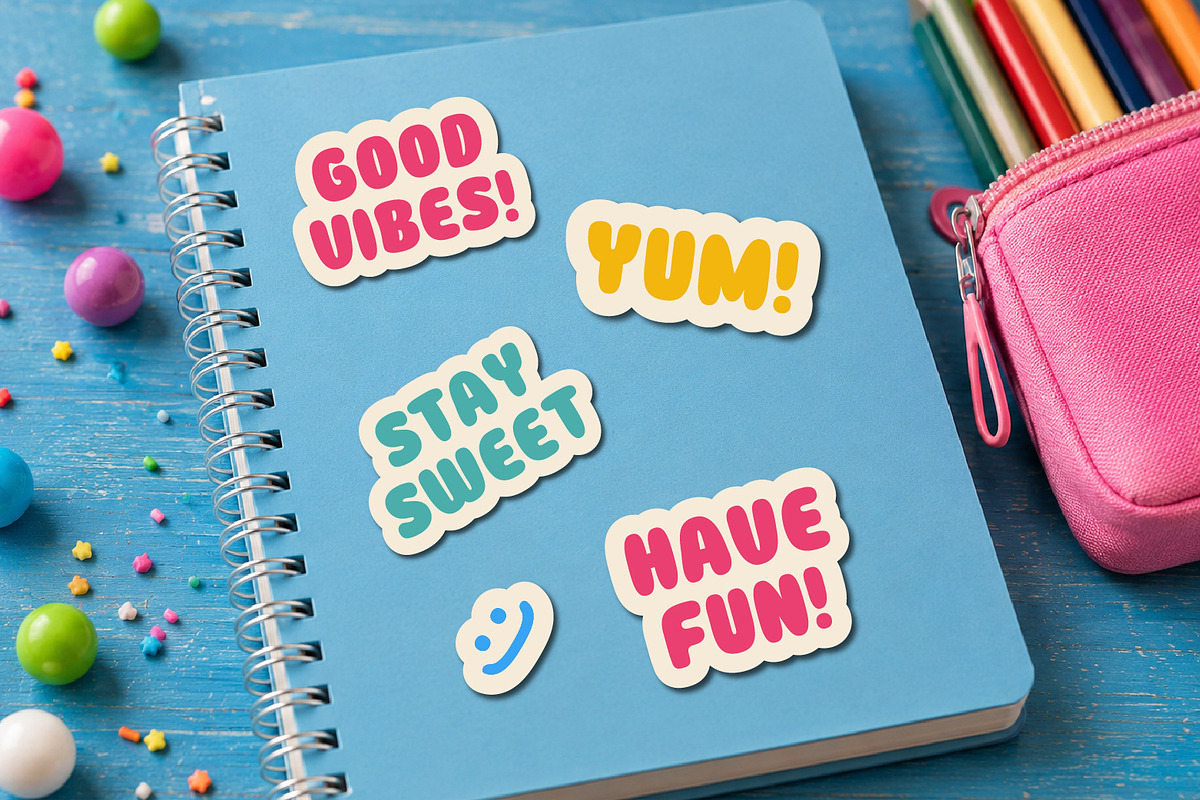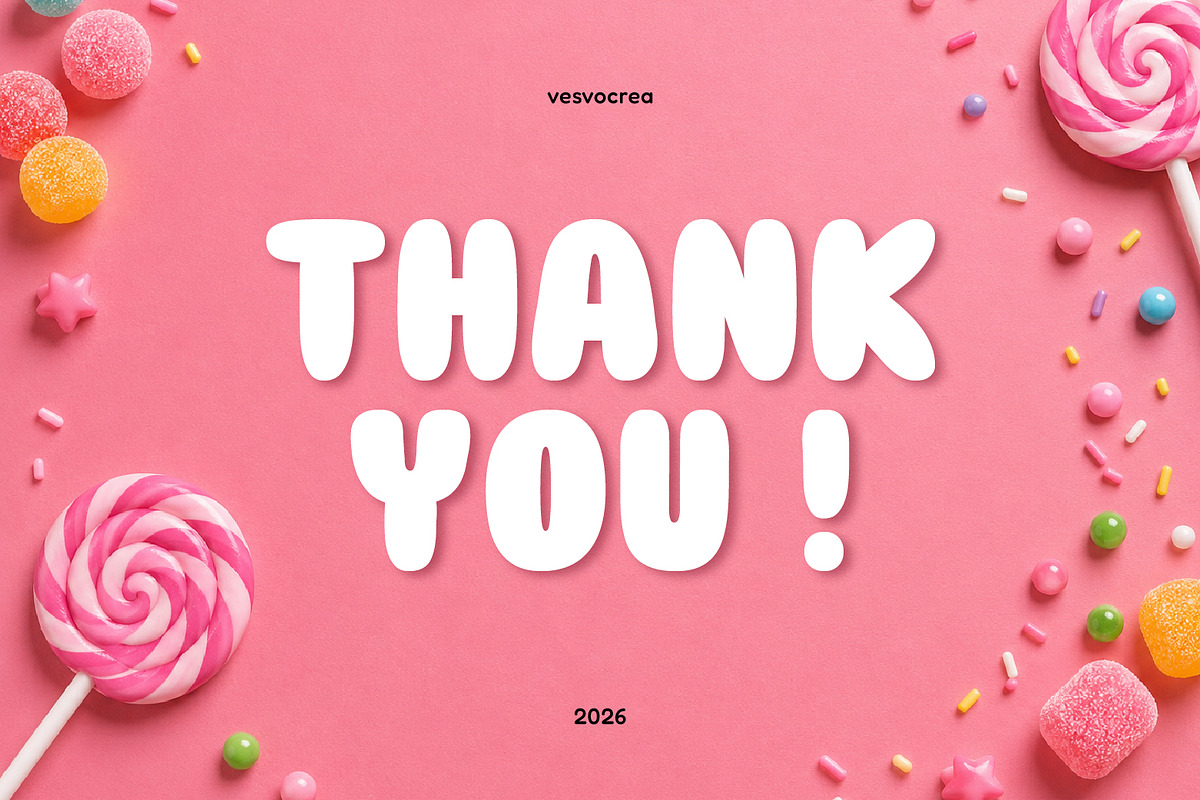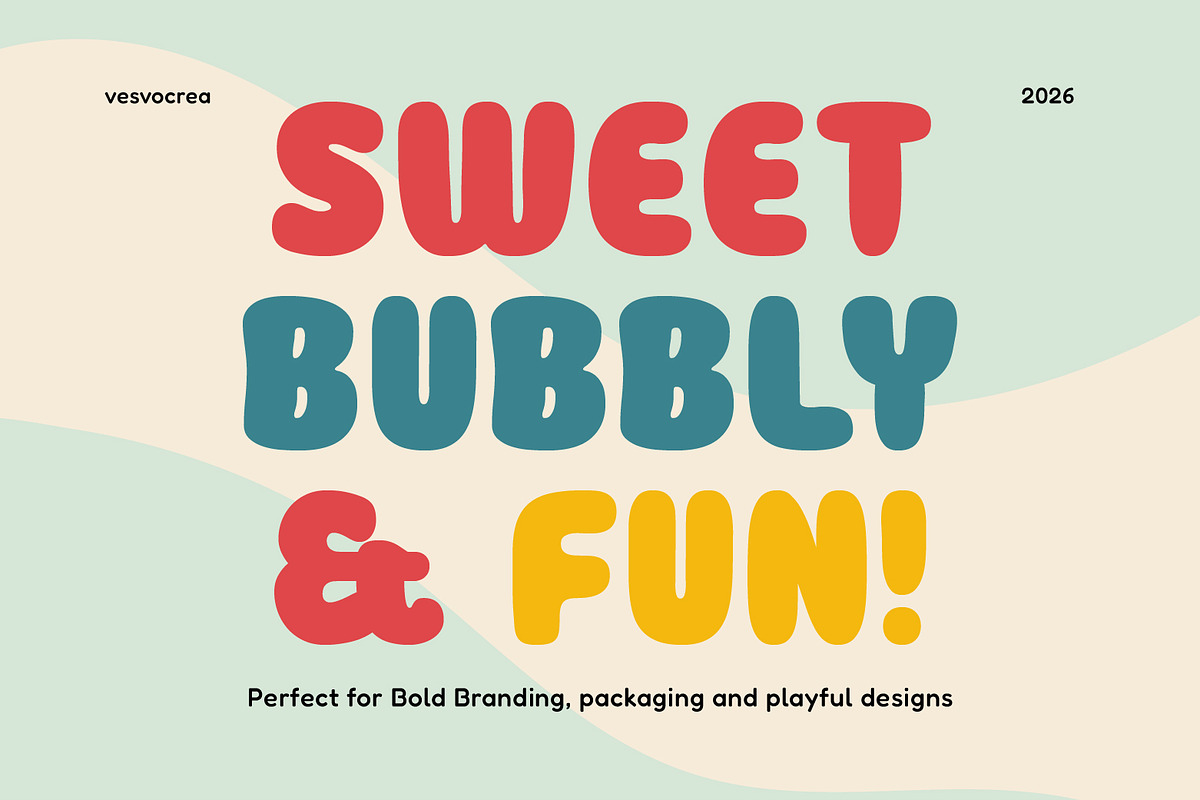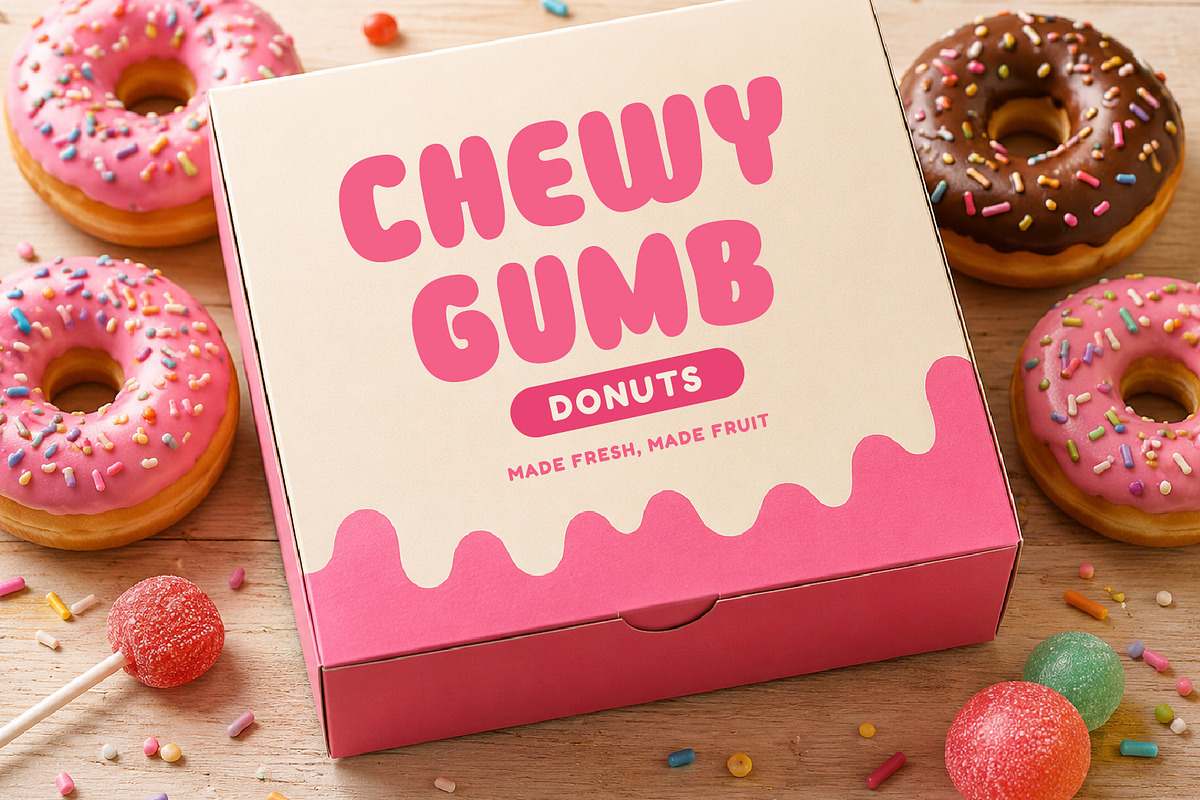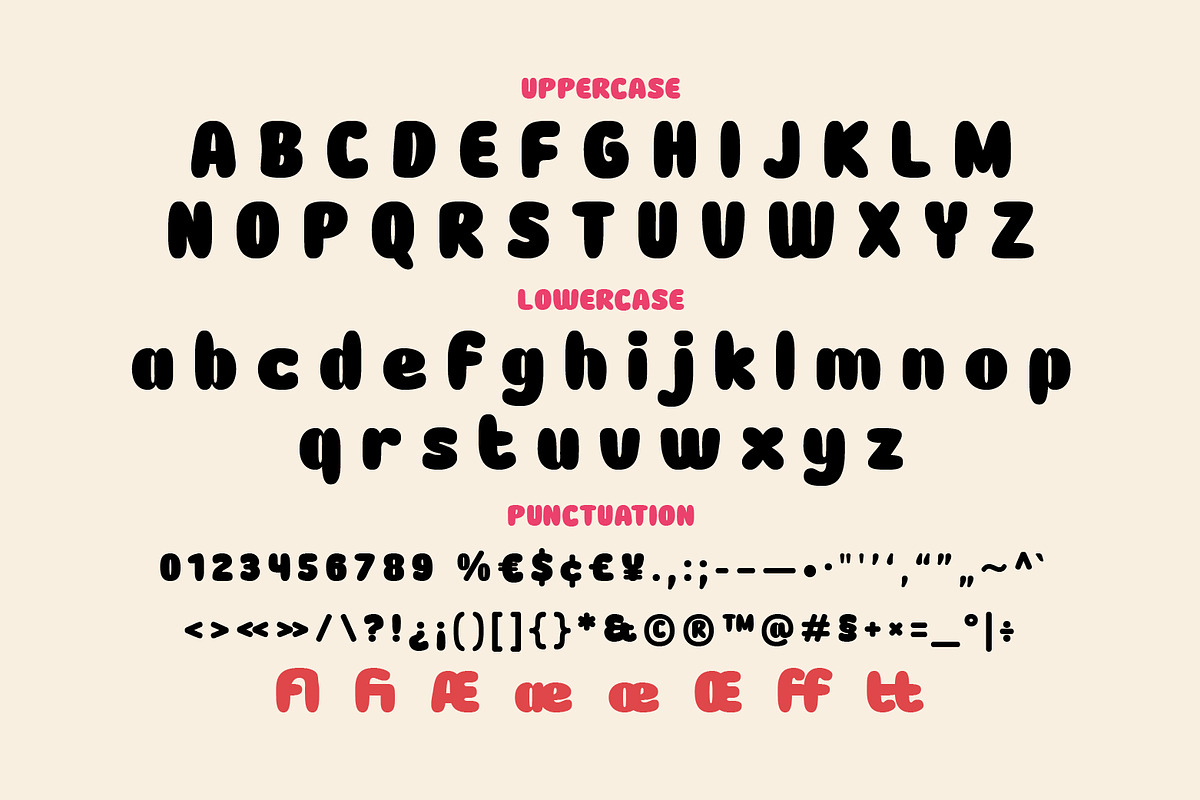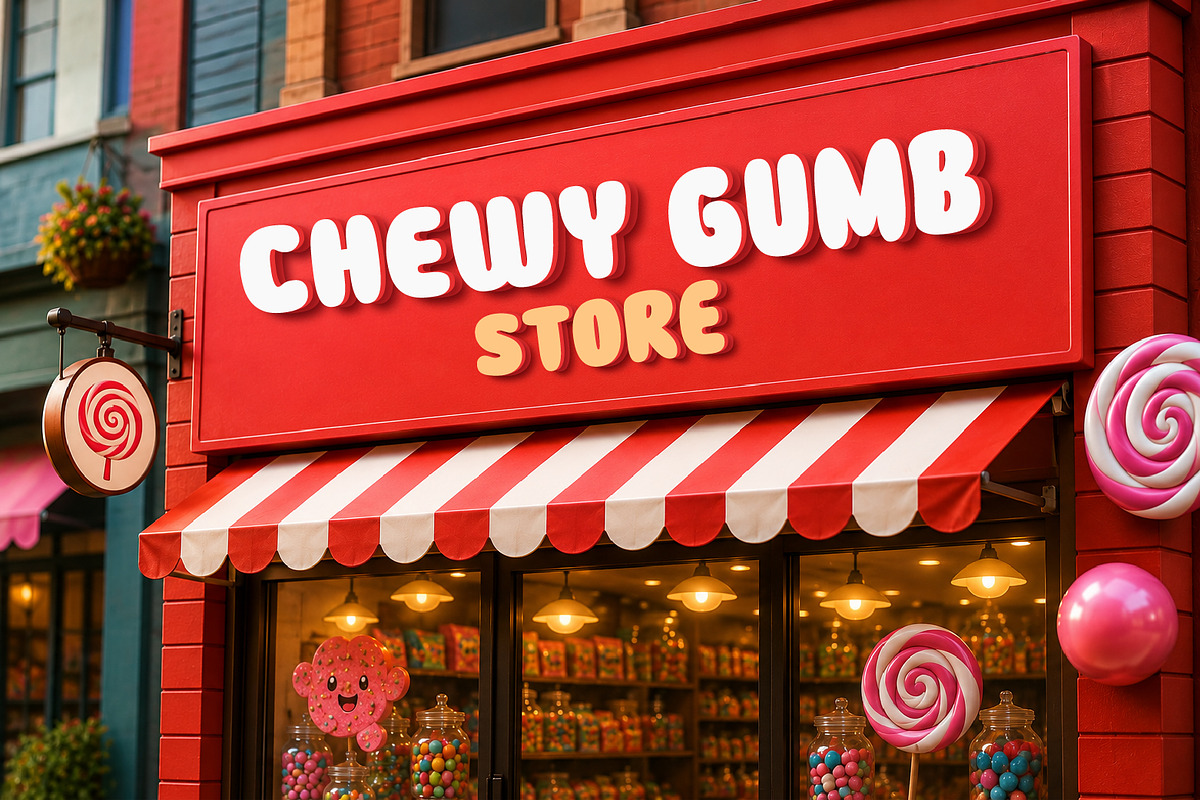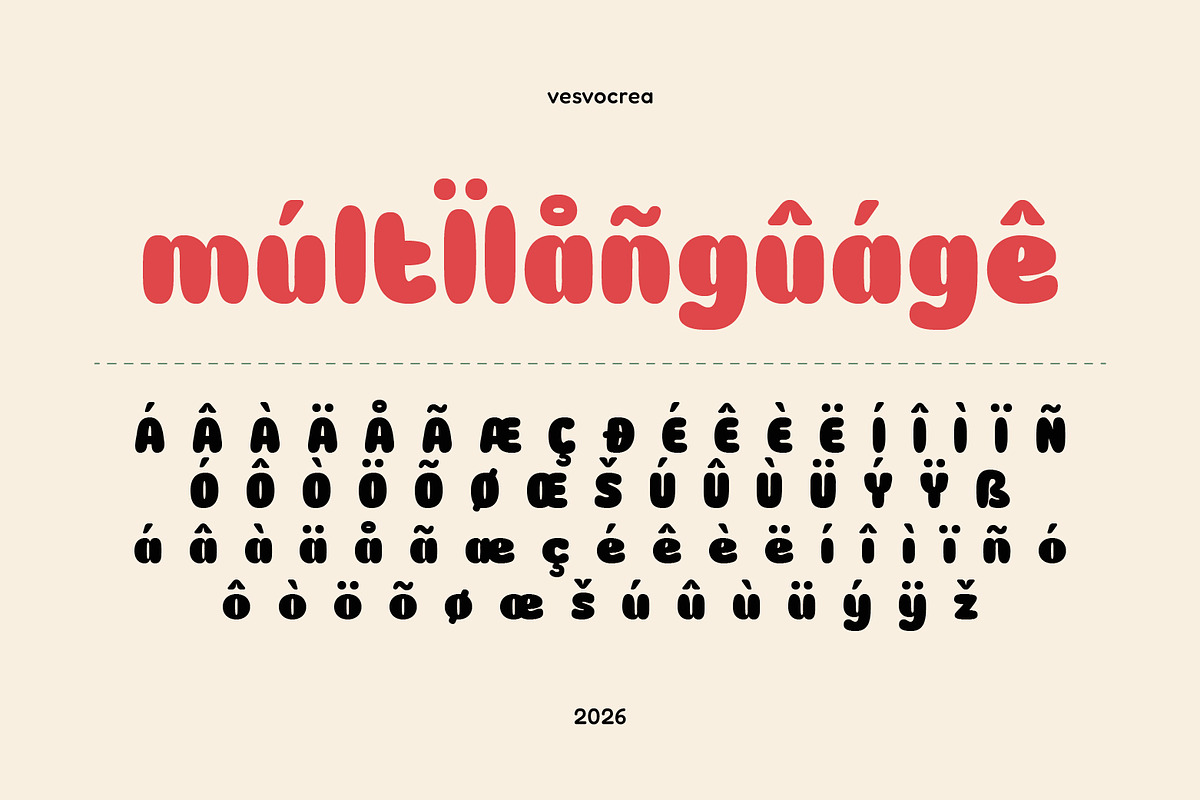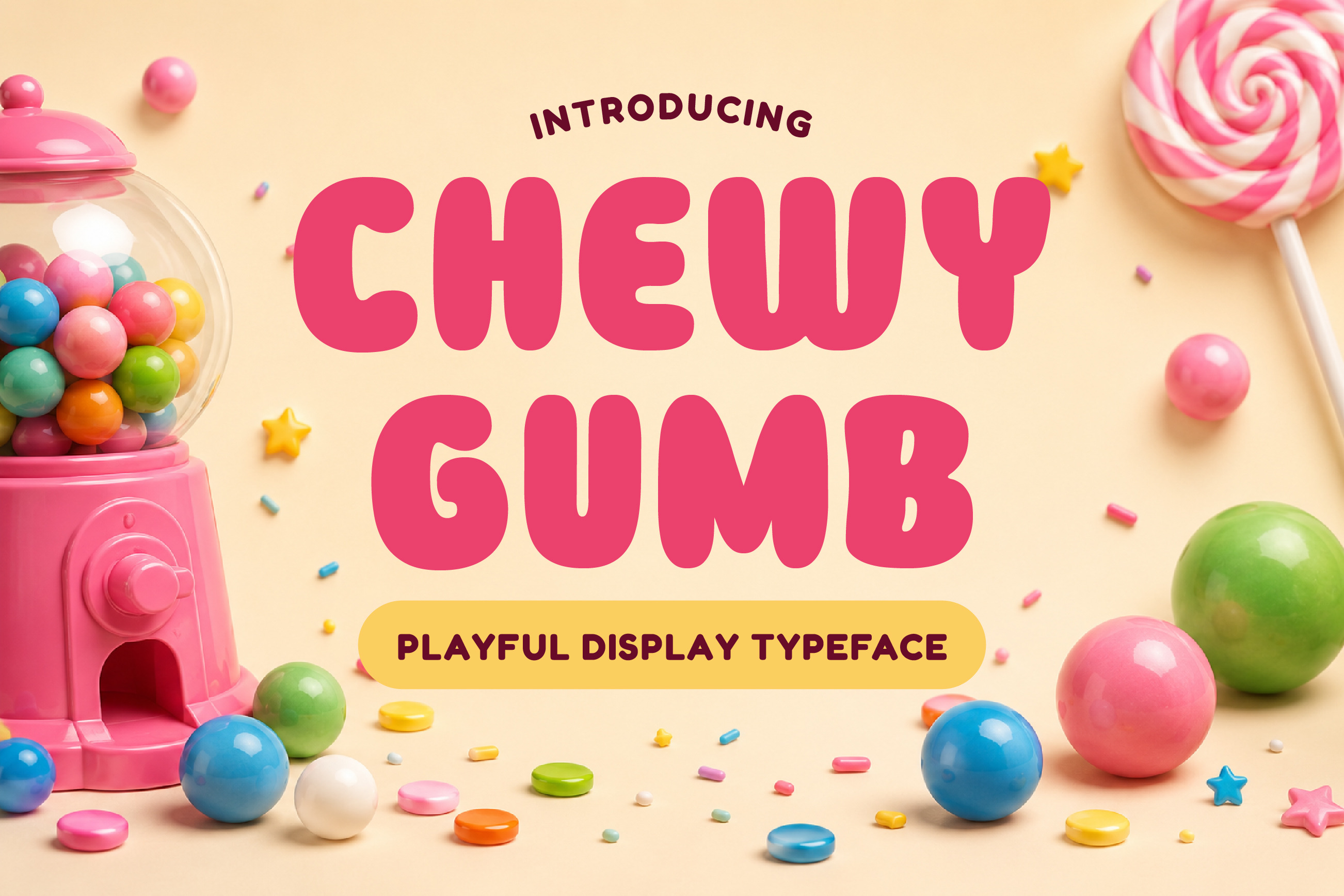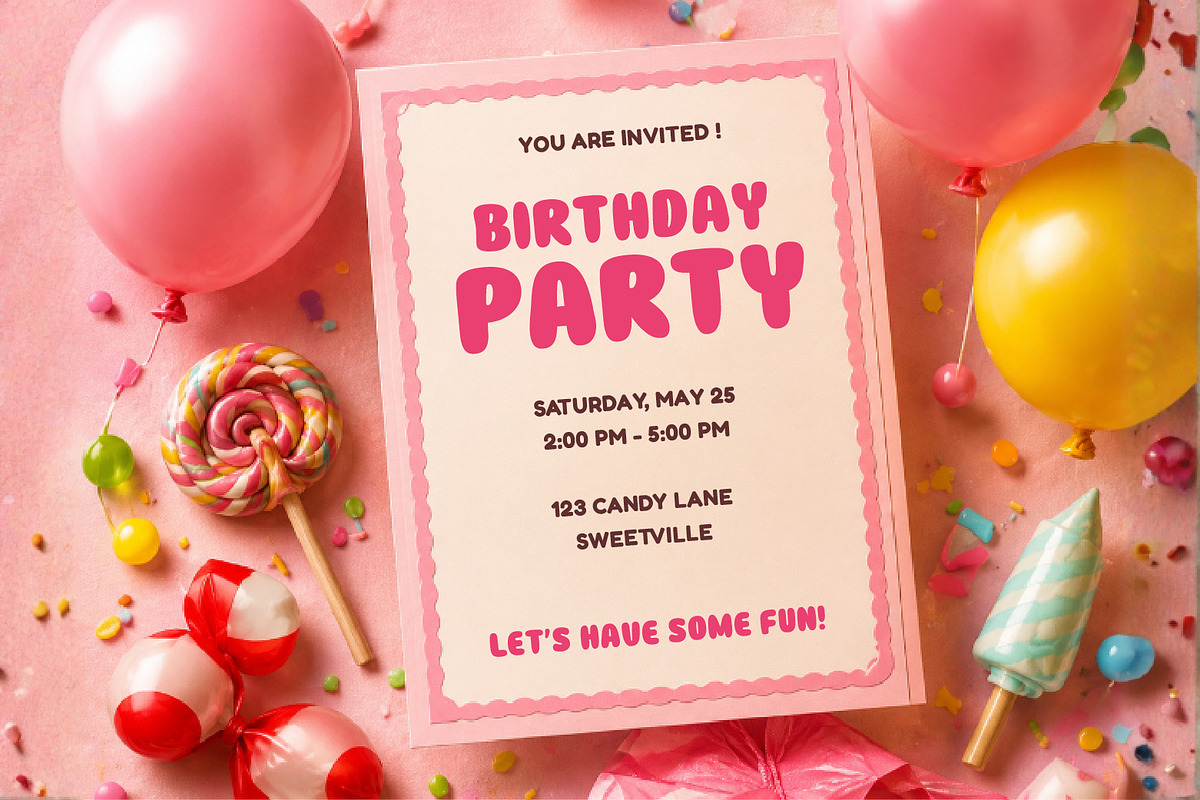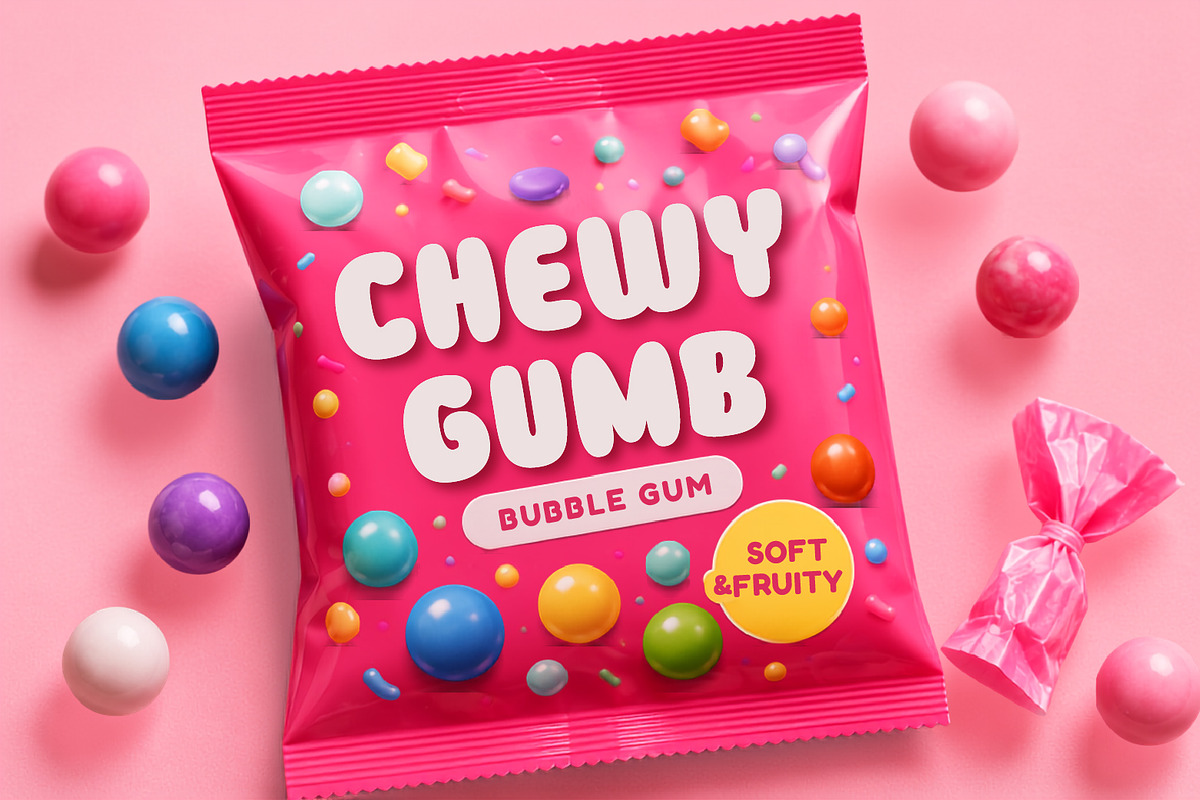
Chewy Gumb - Playful Display Font
Chewy Gumb is a playful bubble display font with bold, soft, and rounded letterforms that bring a fun and cheerful personality to every design. Inspired by sweet treats and candy-themed visuals, this typeface is perfect for creating eye-catching designs with a cute and friendly appearance.
Whether you're working on logos, branding, packaging, posters, social media graphics, children's projects, or other creative designs, Chewy Gumb adds a colorful and playful touch that instantly stands out.
- Logos, branding, packaging, posters, children's projects, social media graphics, merchandise, and more.
This typeface has been carefully designed with attention to every detail, making it both versatile and enjoyable to use across a wide variety of creative projects.